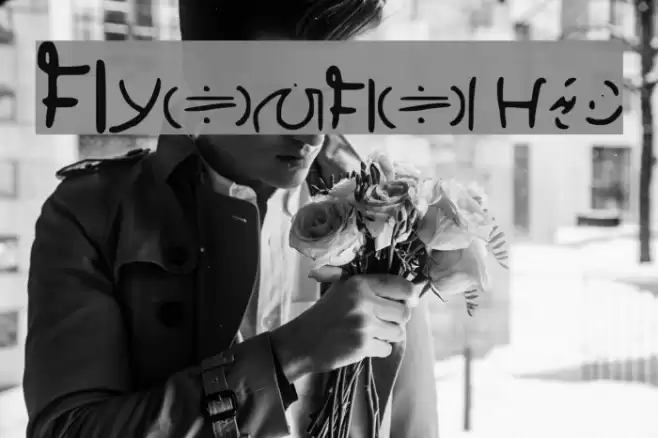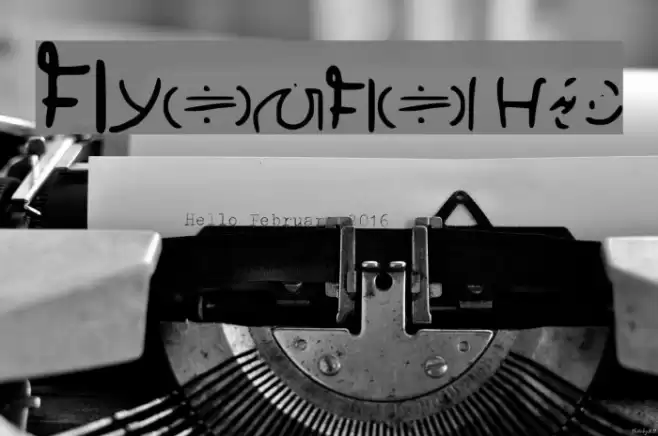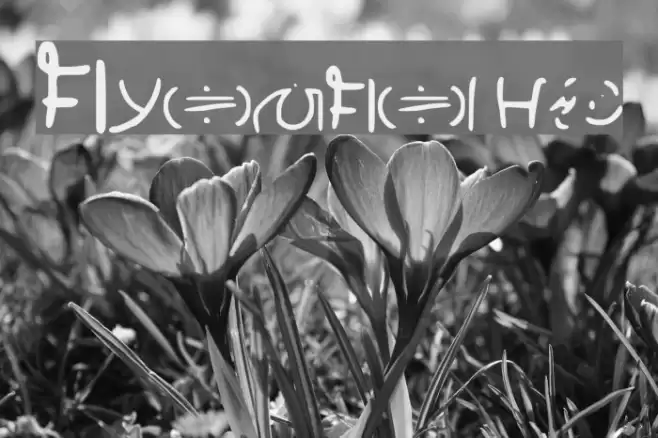
Wailwish Font
Wailwish Description
This font features a highly decorative and abstract style, reminiscent of ancient scripts or symbolic writing. The characters are composed of intricate curves and lines, creating a sense of mystery and artistic flair. Each letter is unique, with varying levels of complexity and ornamentation, making it stand out as a display font. The numbers and special characters follow the same ornate design, adding to the overall cohesive look. This font is not suited for body text due to its elaborate nature but excels in creative and artistic applications.
An abstract and decorative font with intricate, symbolic characters from Uncategorized fonts.
- Proposed Projects: Ideal for artistic projects, fantasy-themed designs, or as a decorative element in branding and logos.
- Use Case: Logos, Artistic projects, Decorative elements